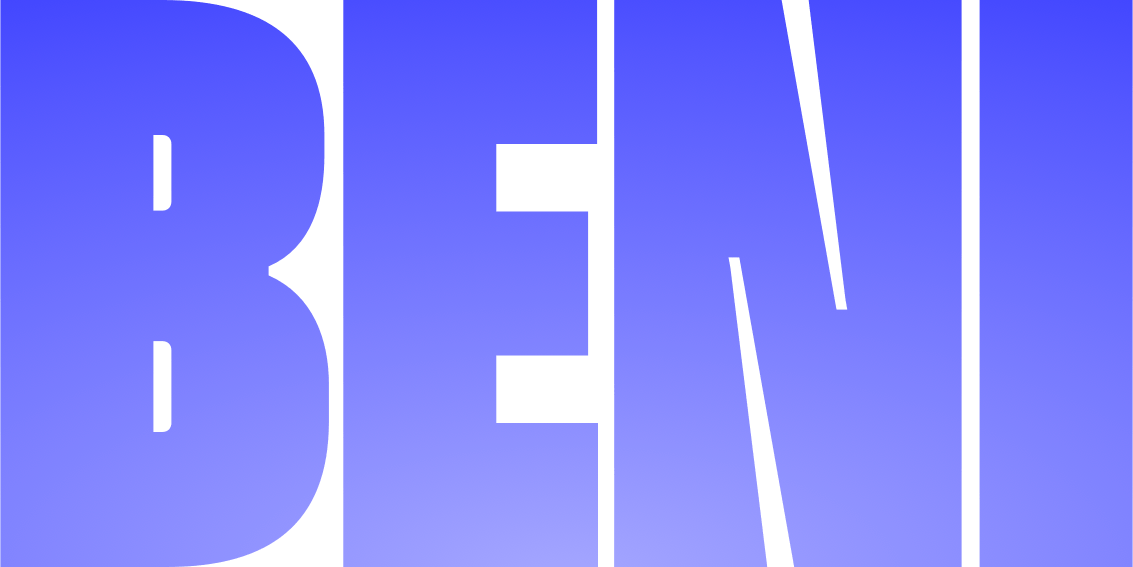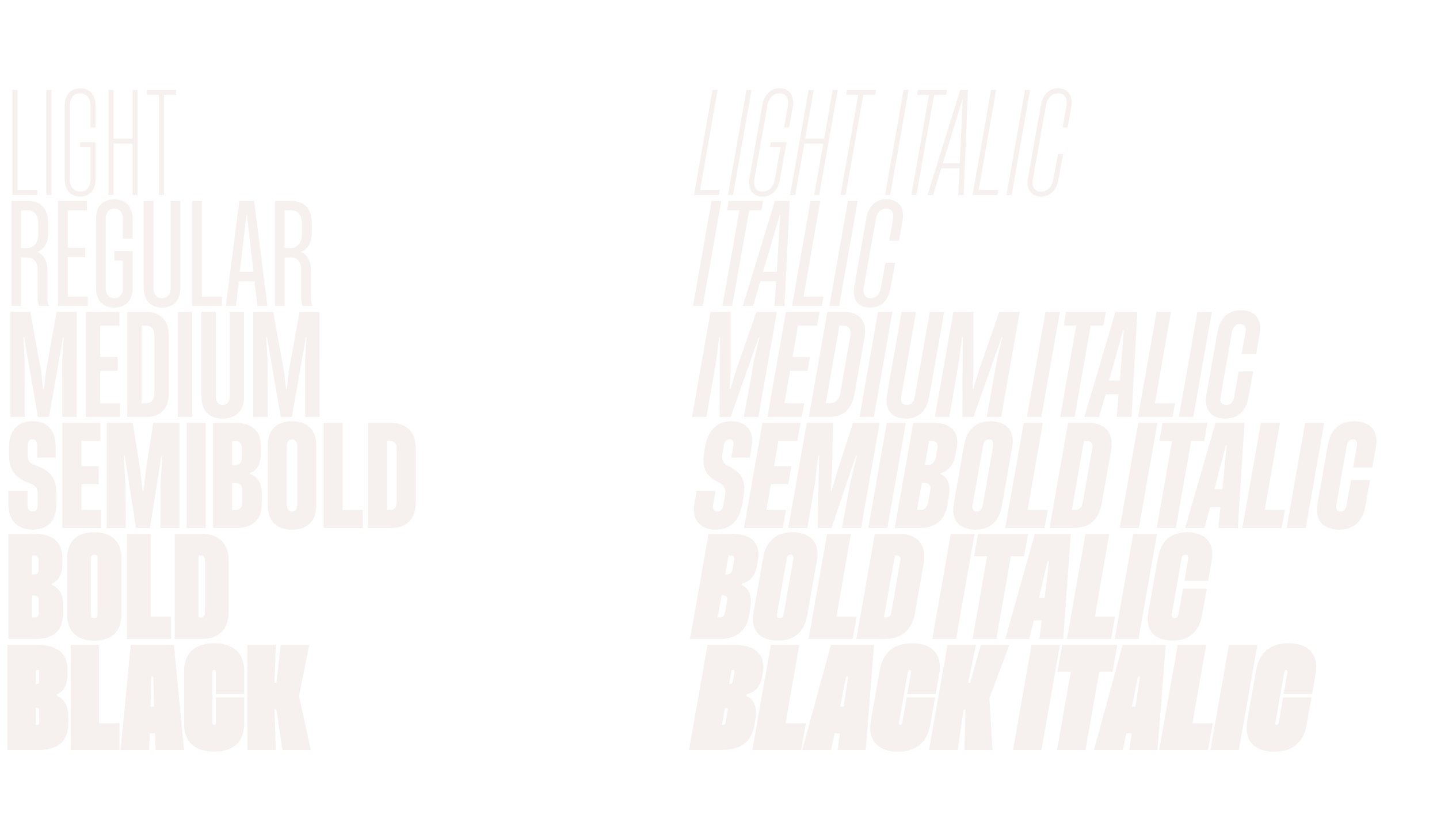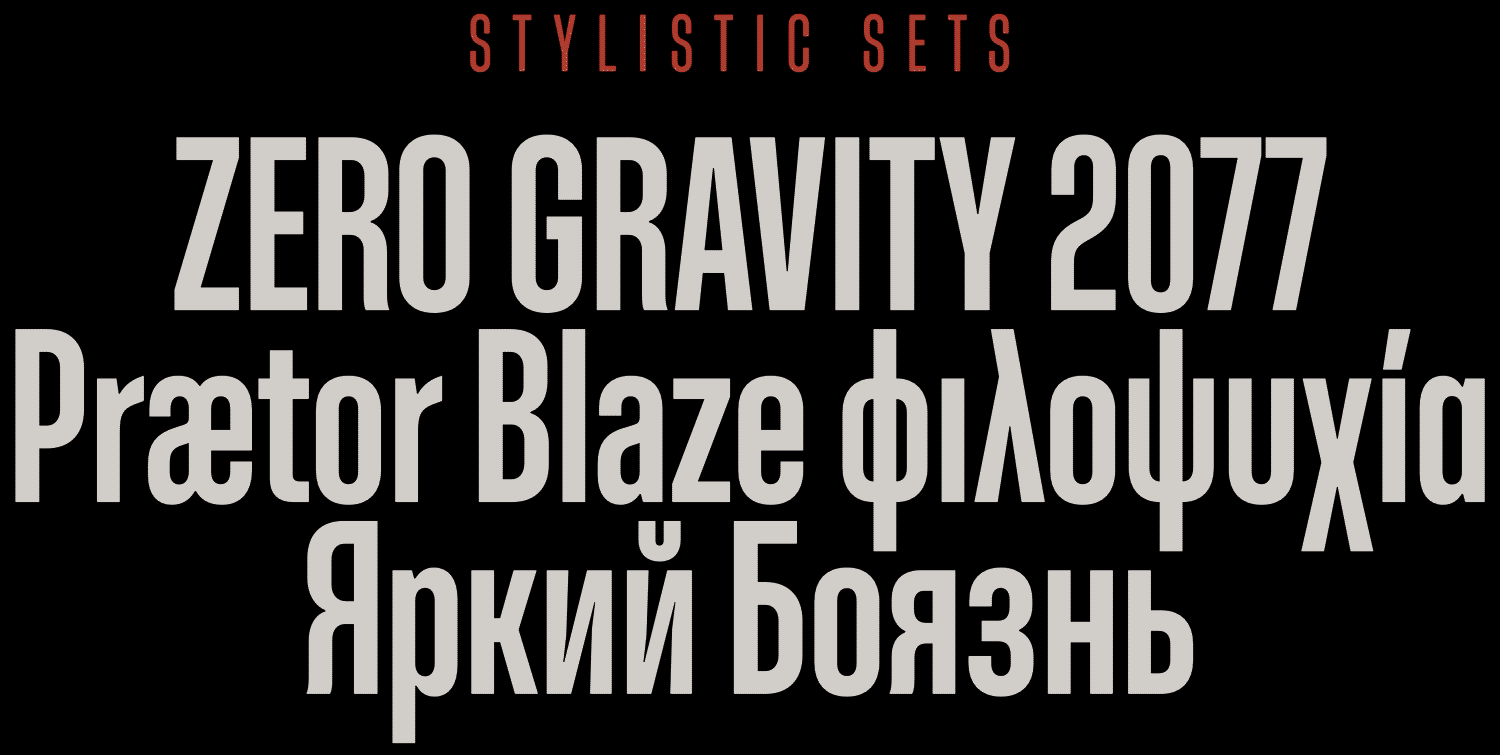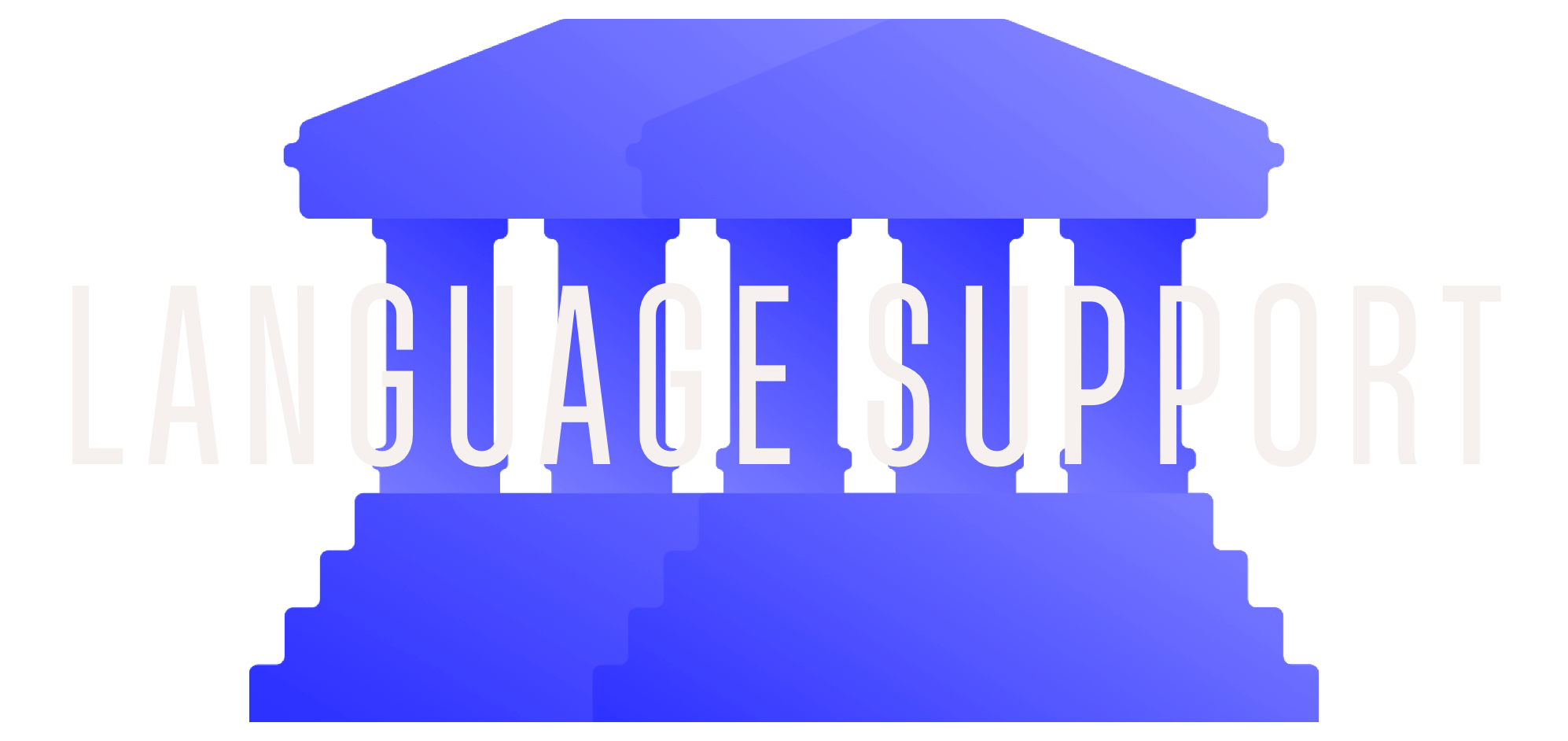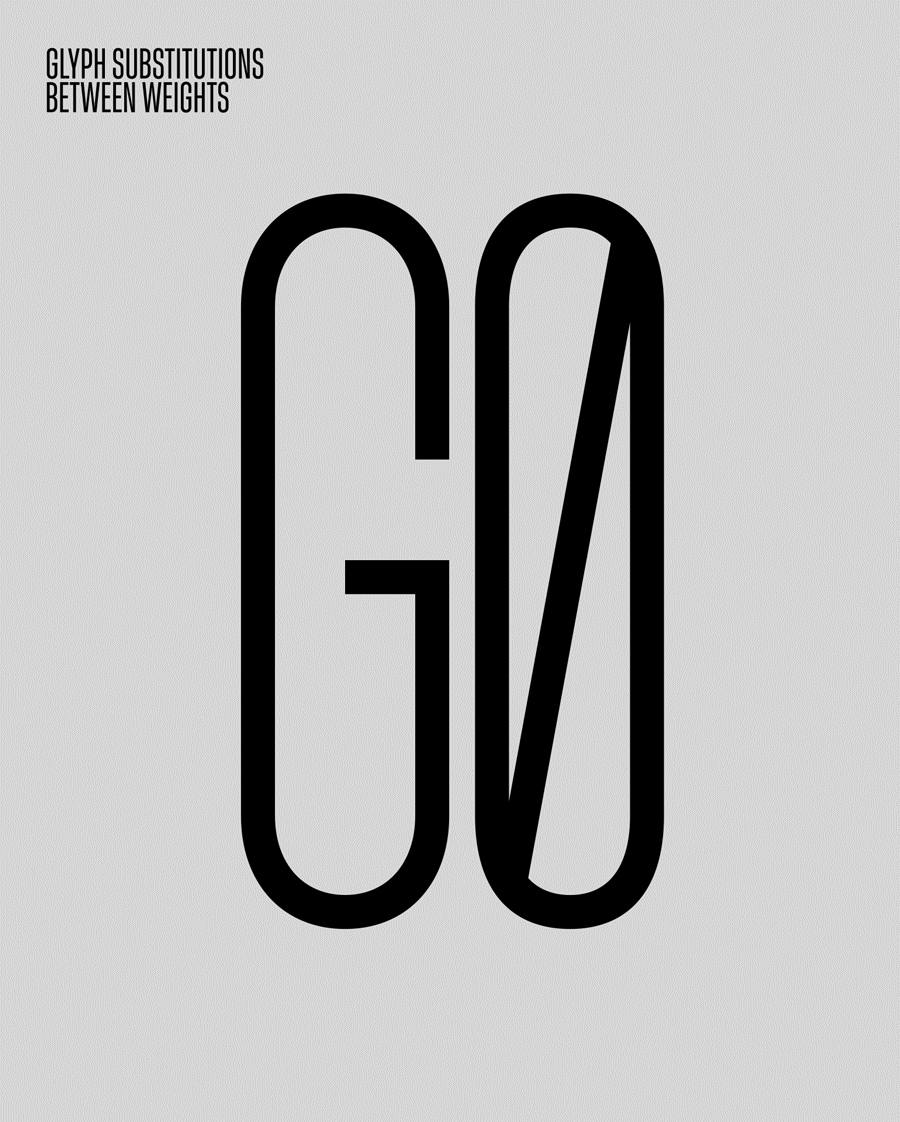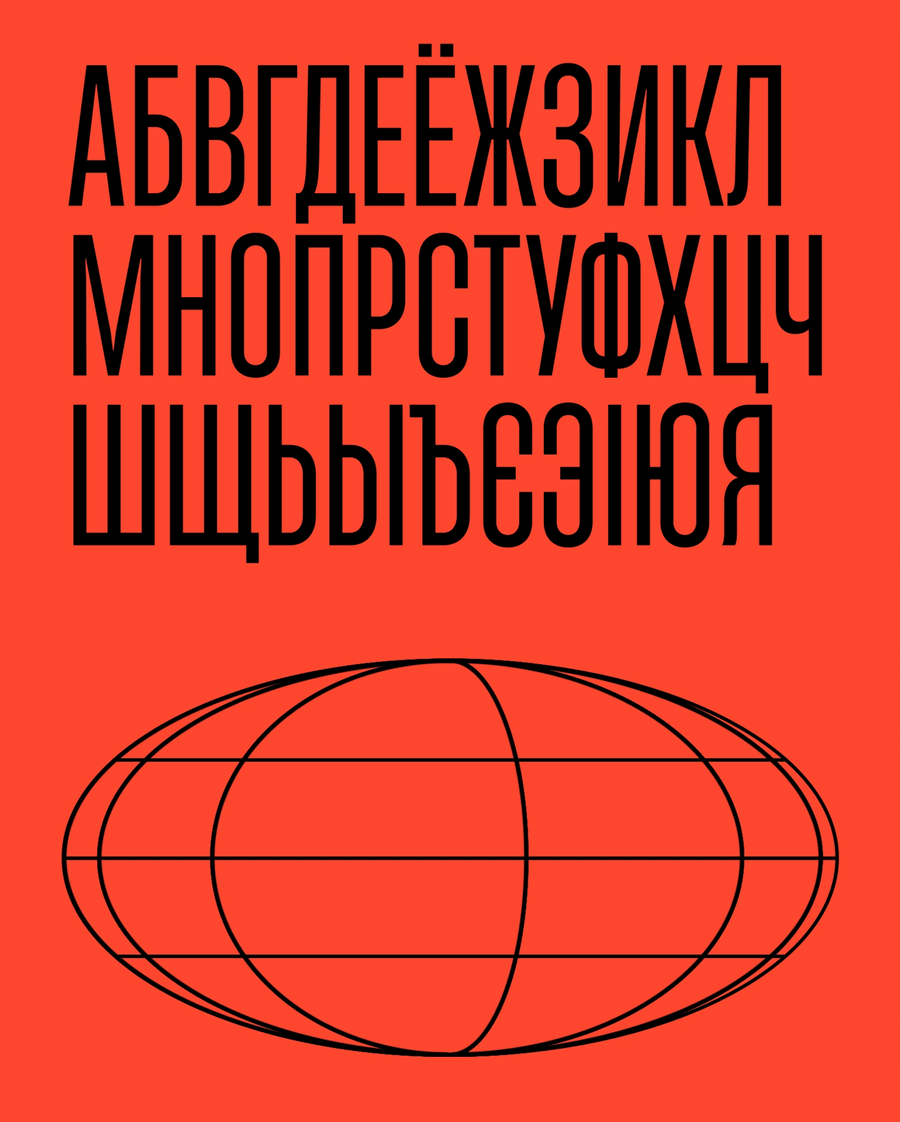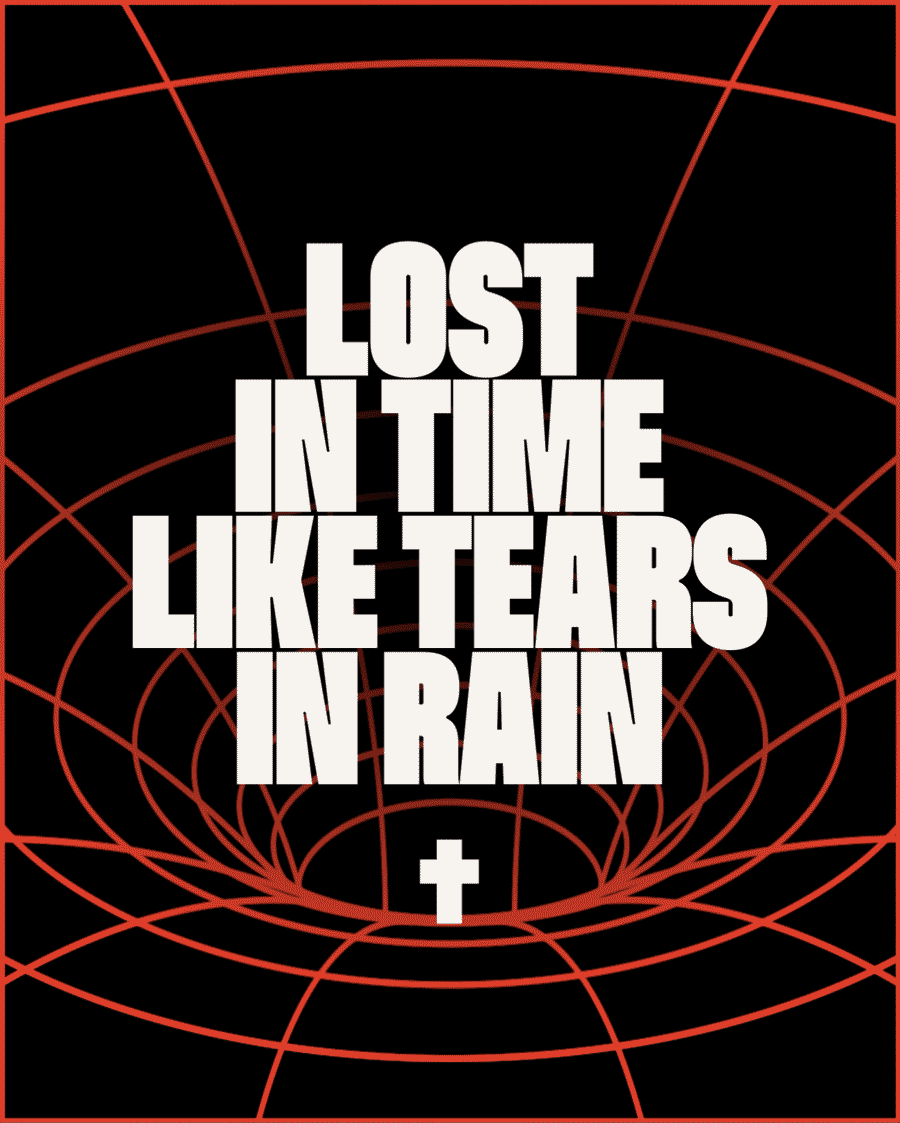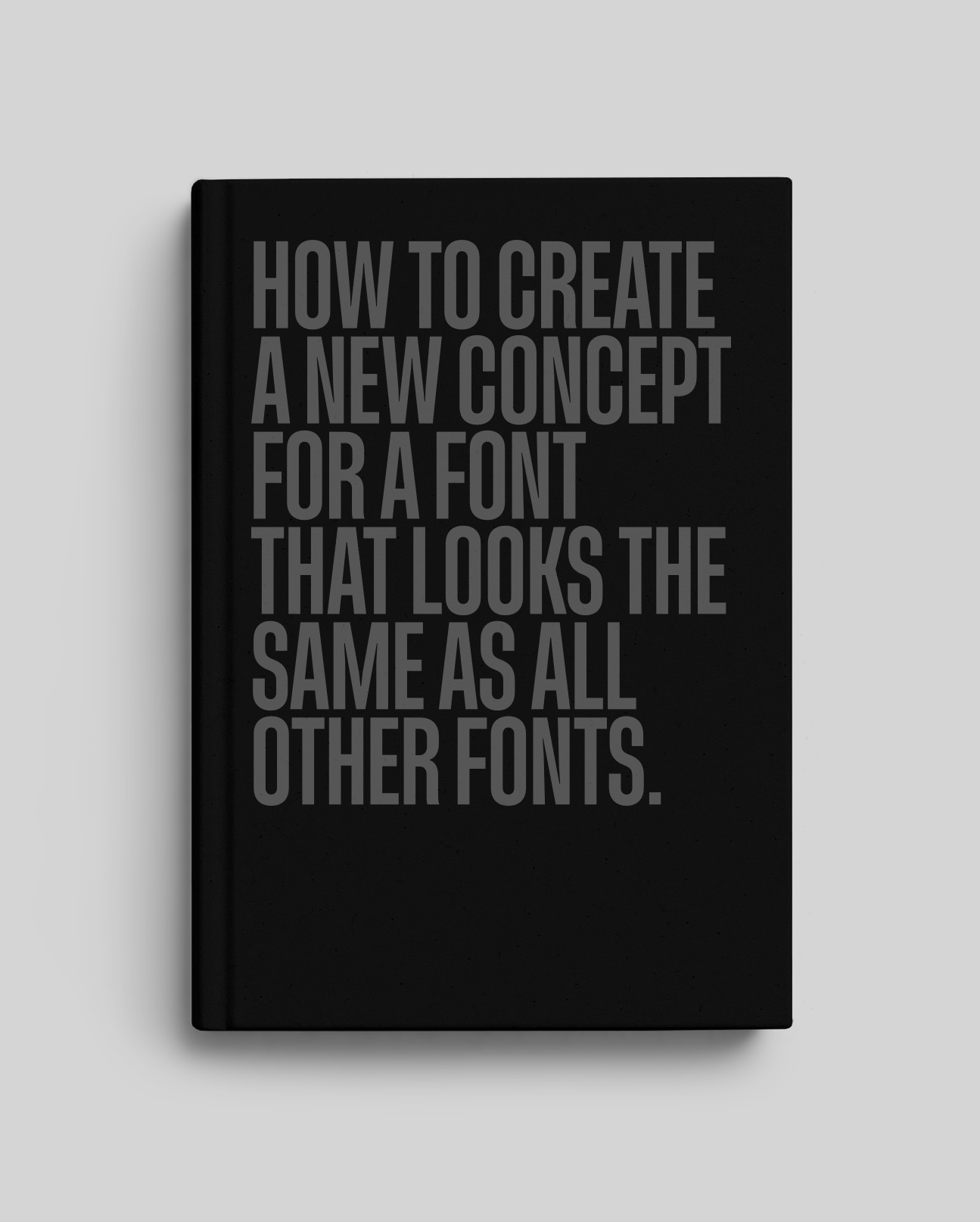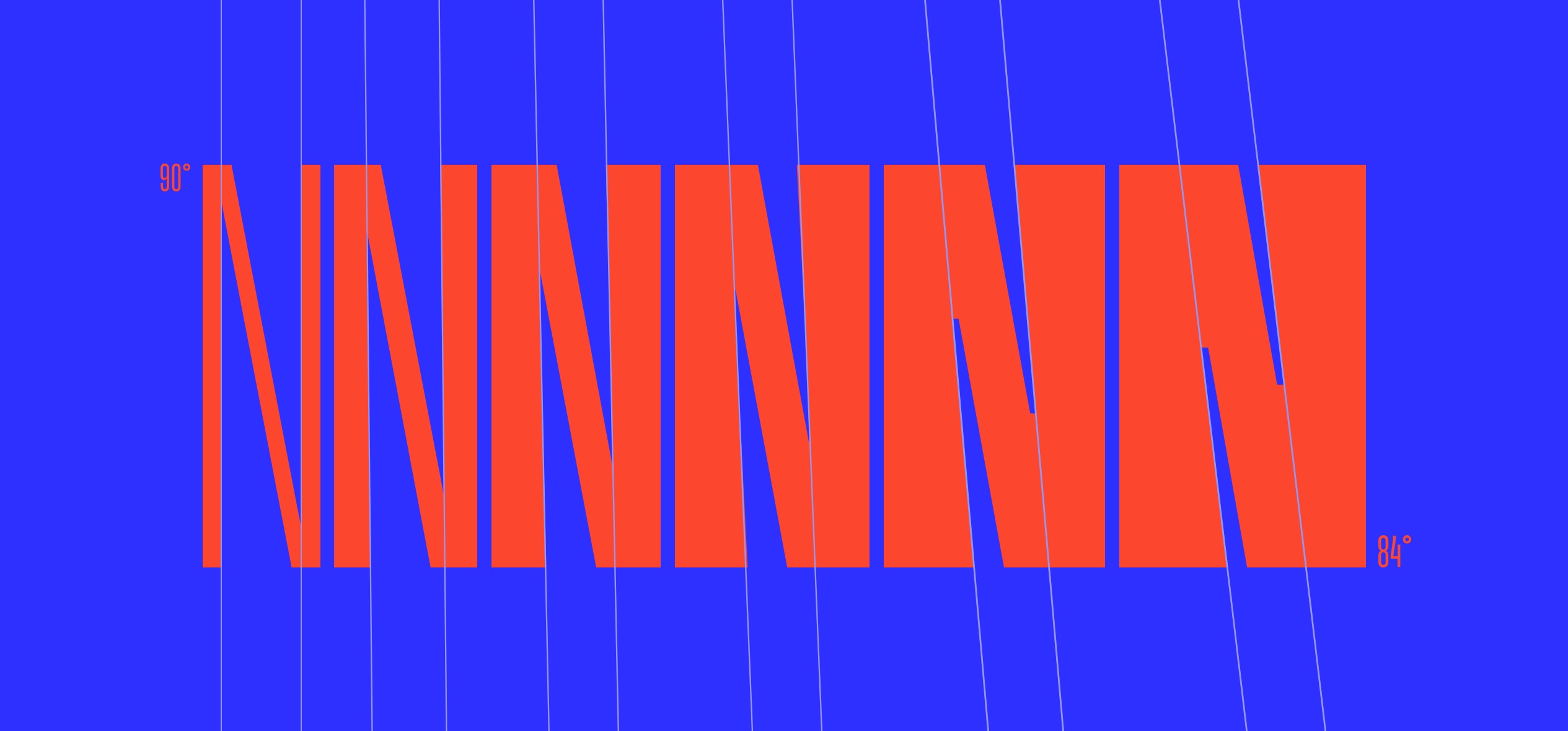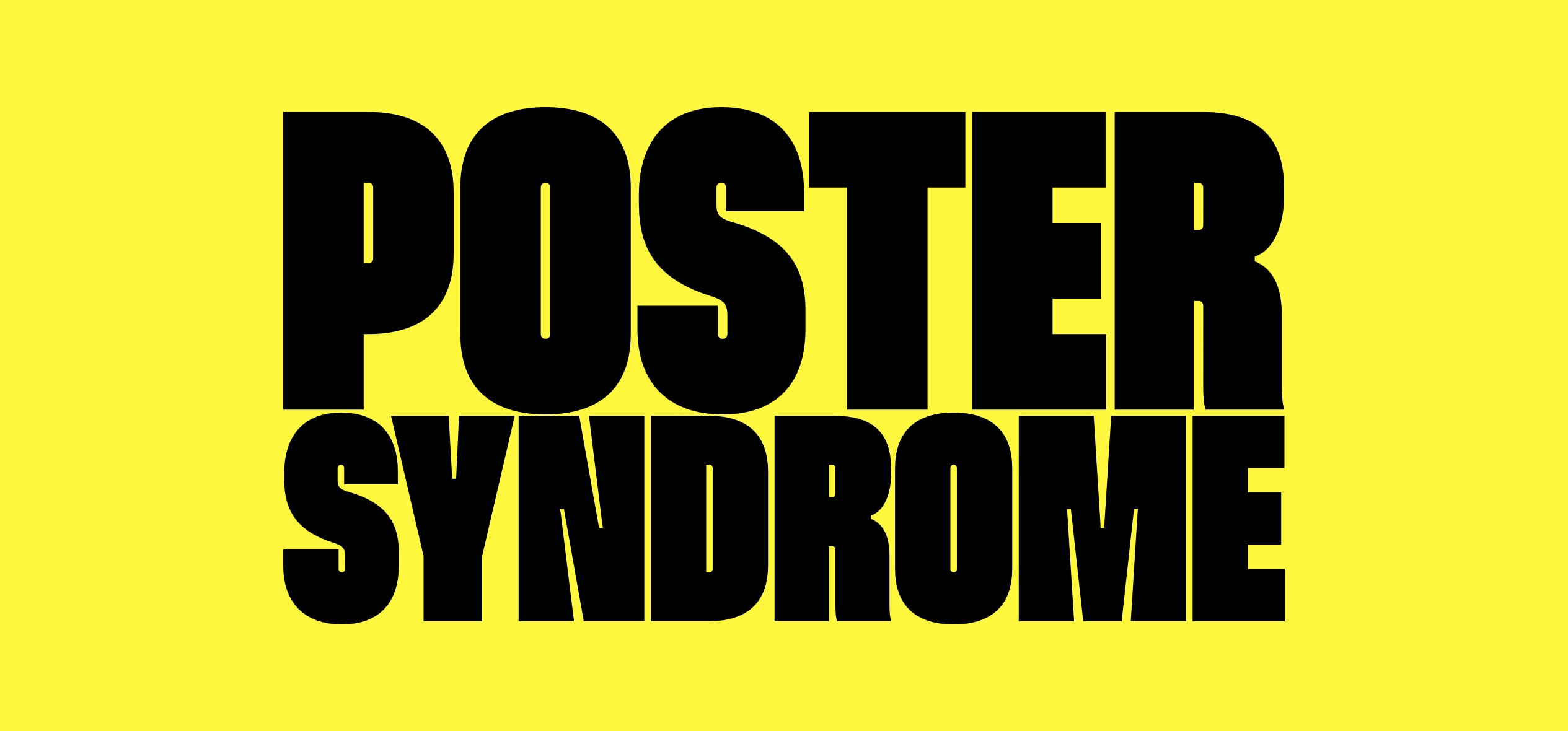
Beni is a bold & strong sans serif font family, beautifully crafted to perform in short headlines, posters and contemporary interface design.
Its shapes have optical compensation to maximize the space between characters. It is made of six styles, from light to black and italics. The glyph set covers the Latin Extended A unicode block supporting almost 100 languages among basic Greek and basic Cyrillic.
Beni have stylistic sets and glyph substitutions, this means some glyph shapes changes between weights, among other OpenType features and comes with 667 glyphs per style.